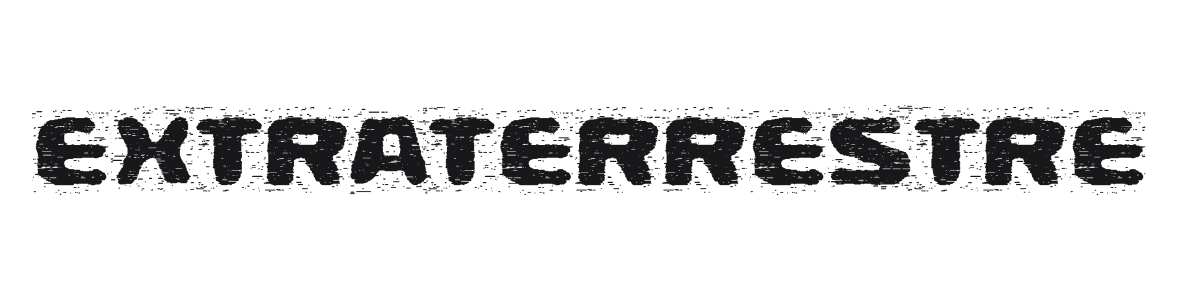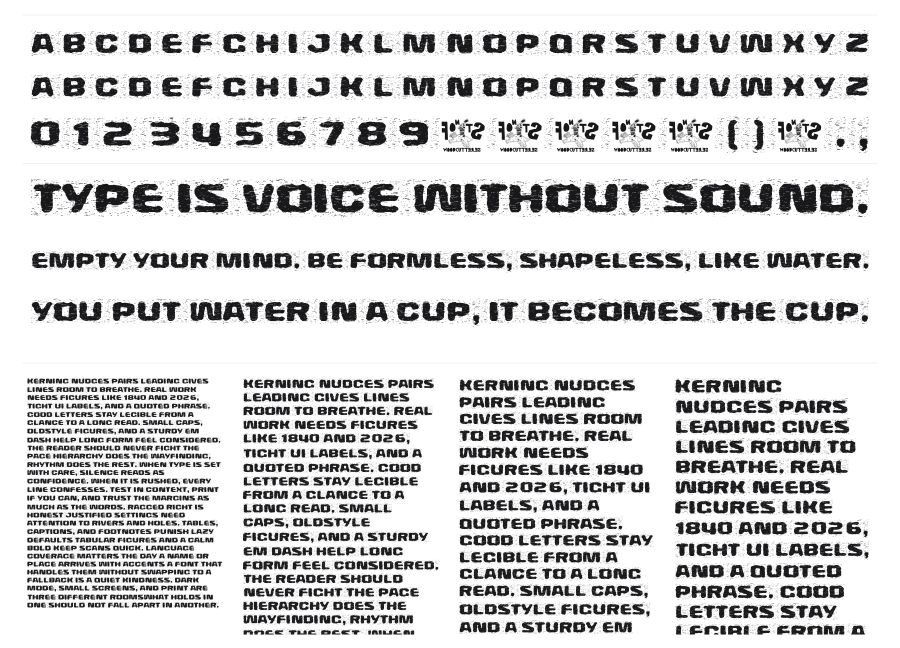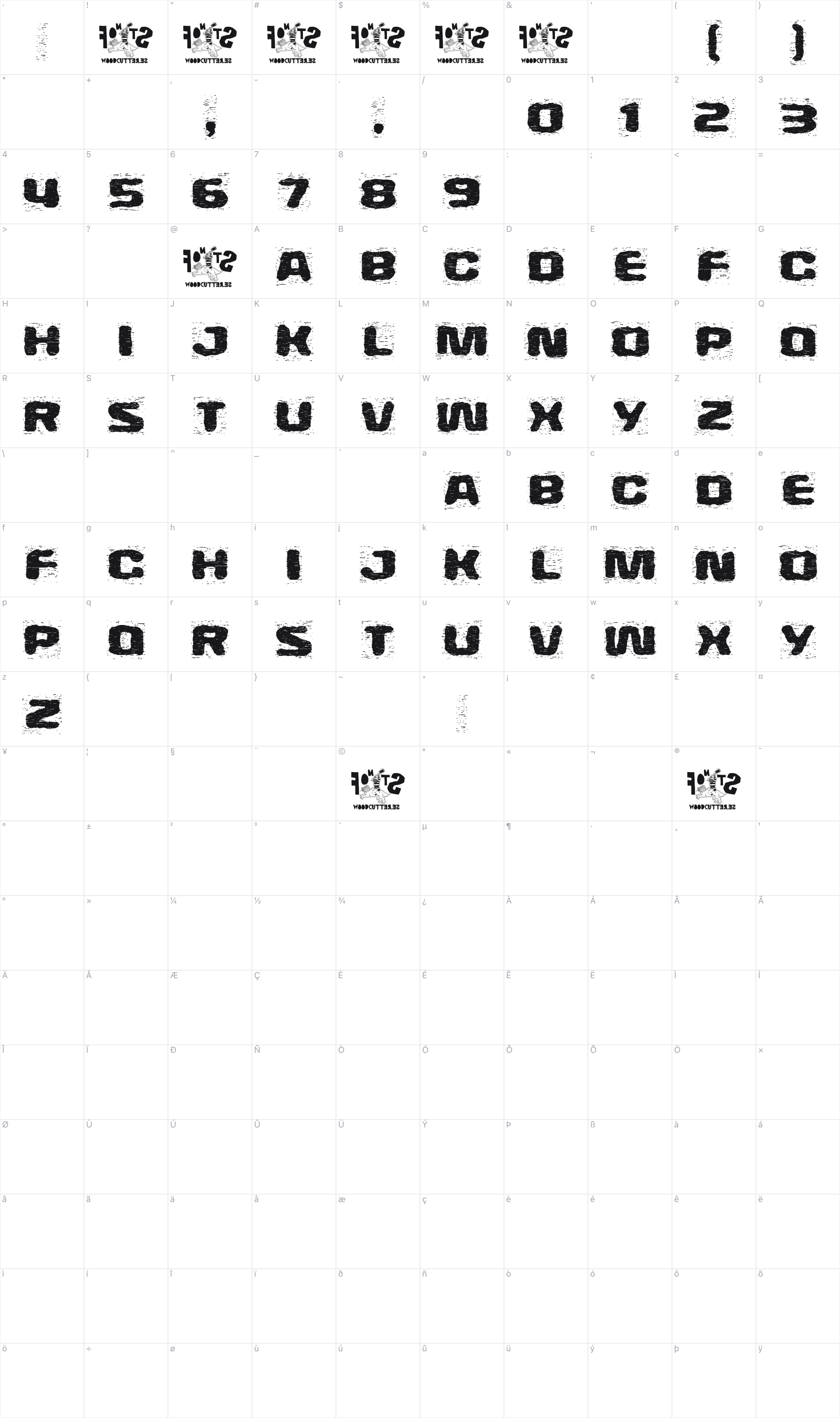
Extraterrestre
Extraterrestre is a heavy distressed display face from Woodcutter with a relentlessly rough, eroded texture across every character. The bold, blocky structure sits under layers of crumbling grain that evokes worn industrial stencils or something recovered from a crash site. It hits hard at large sizes for posters, album covers, and genre entertainment.